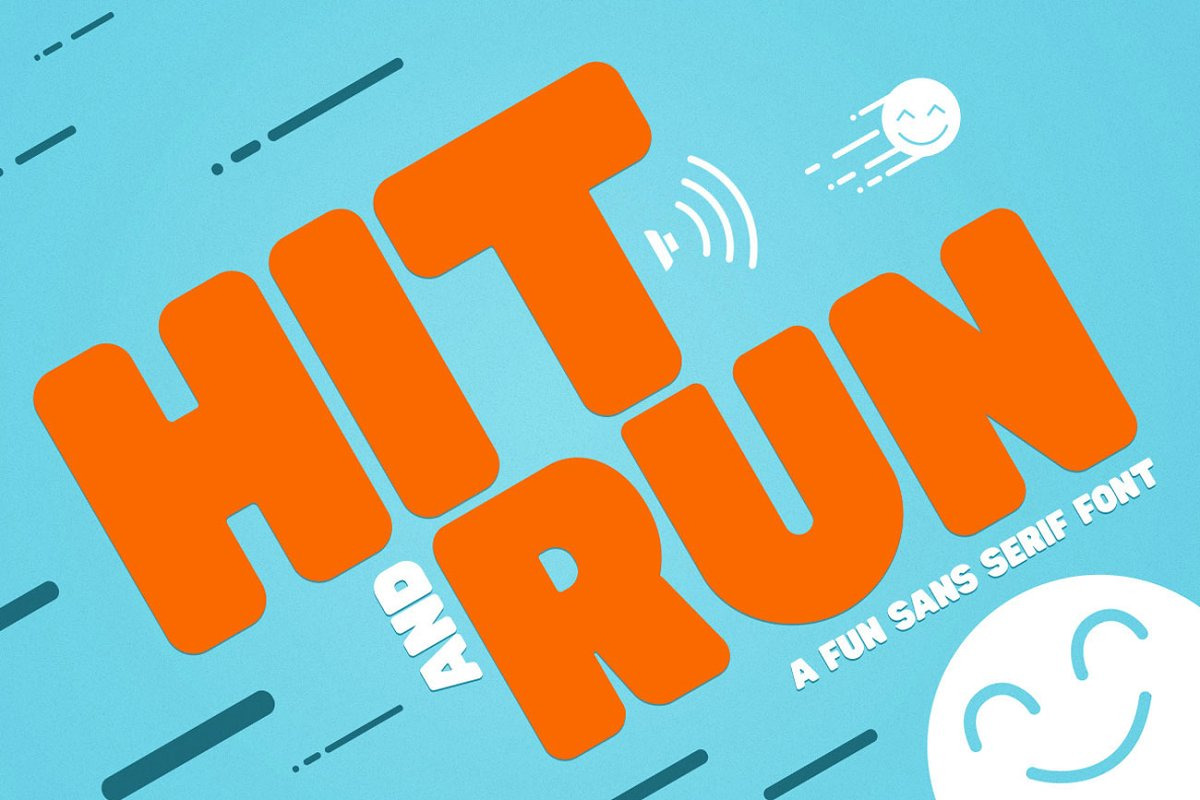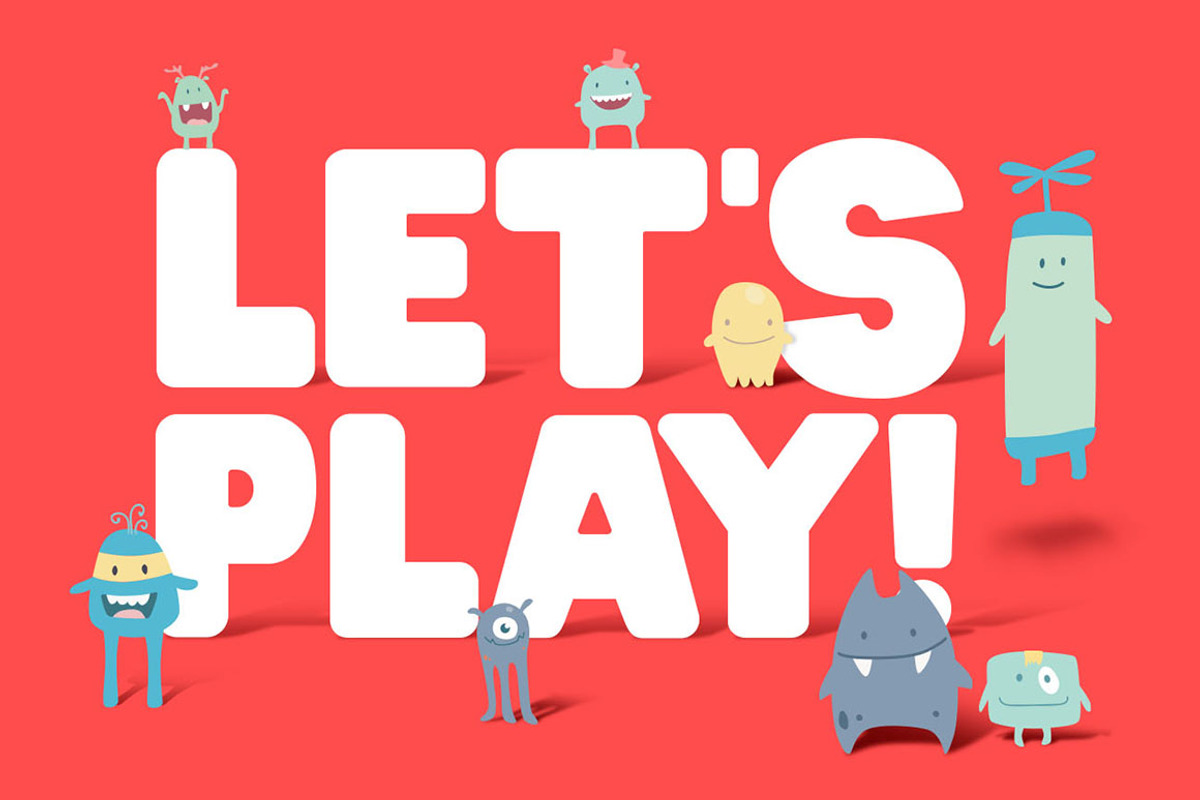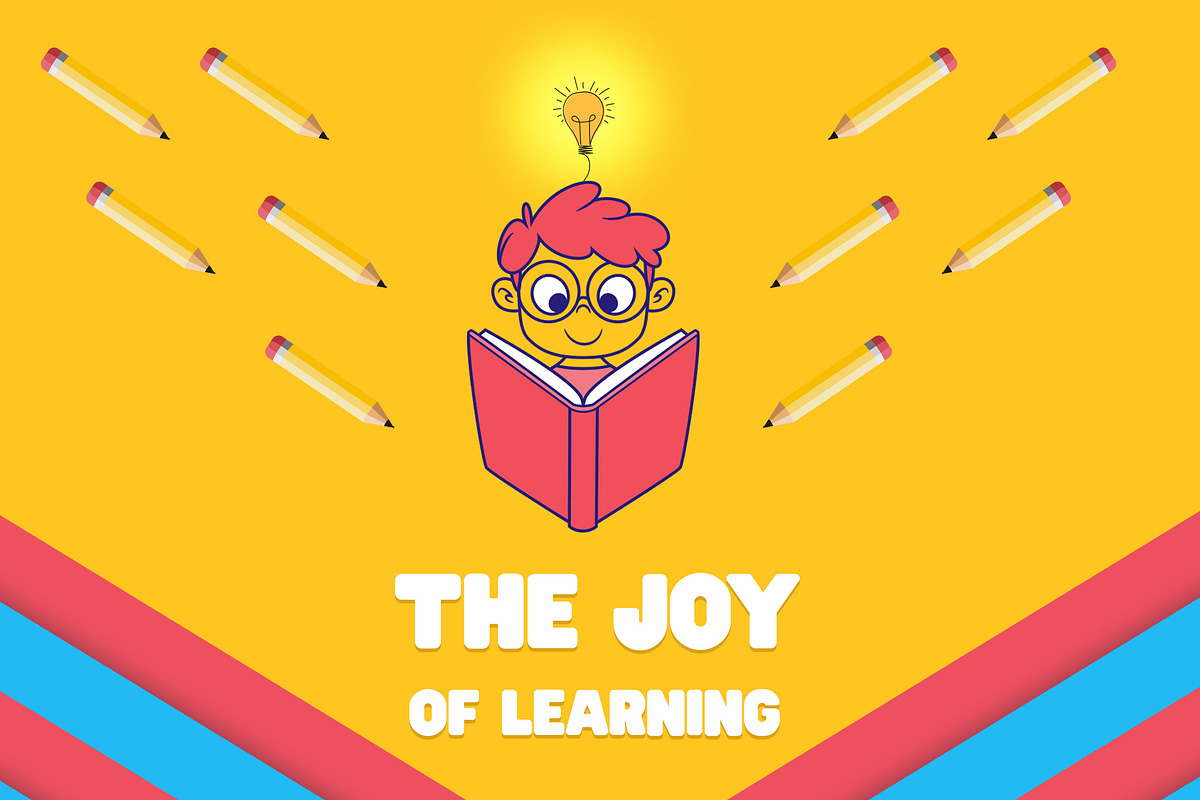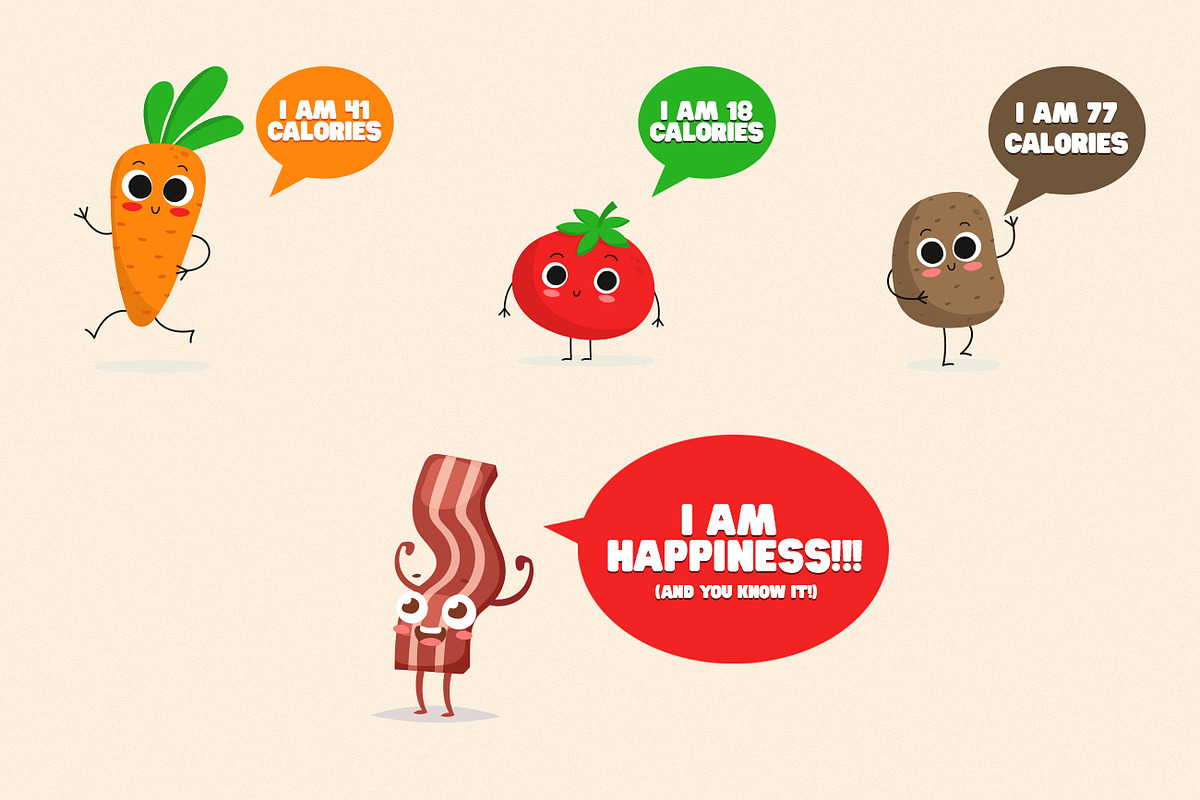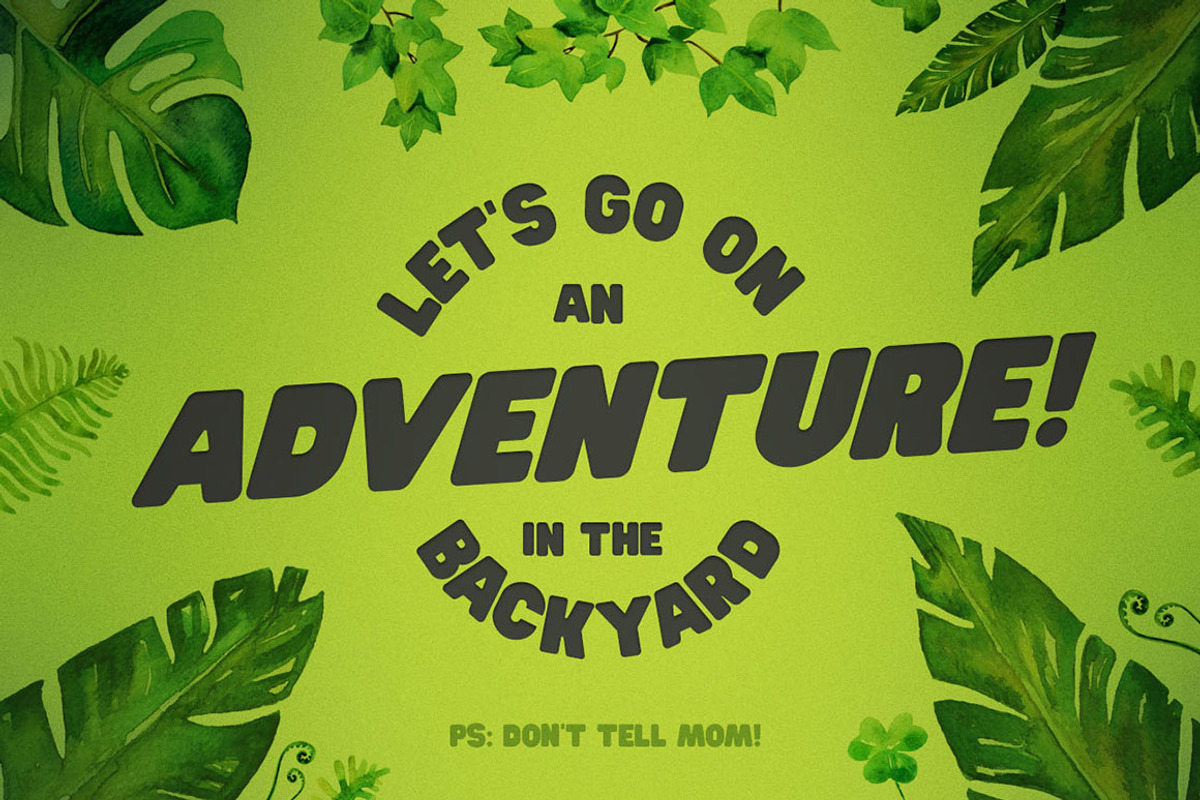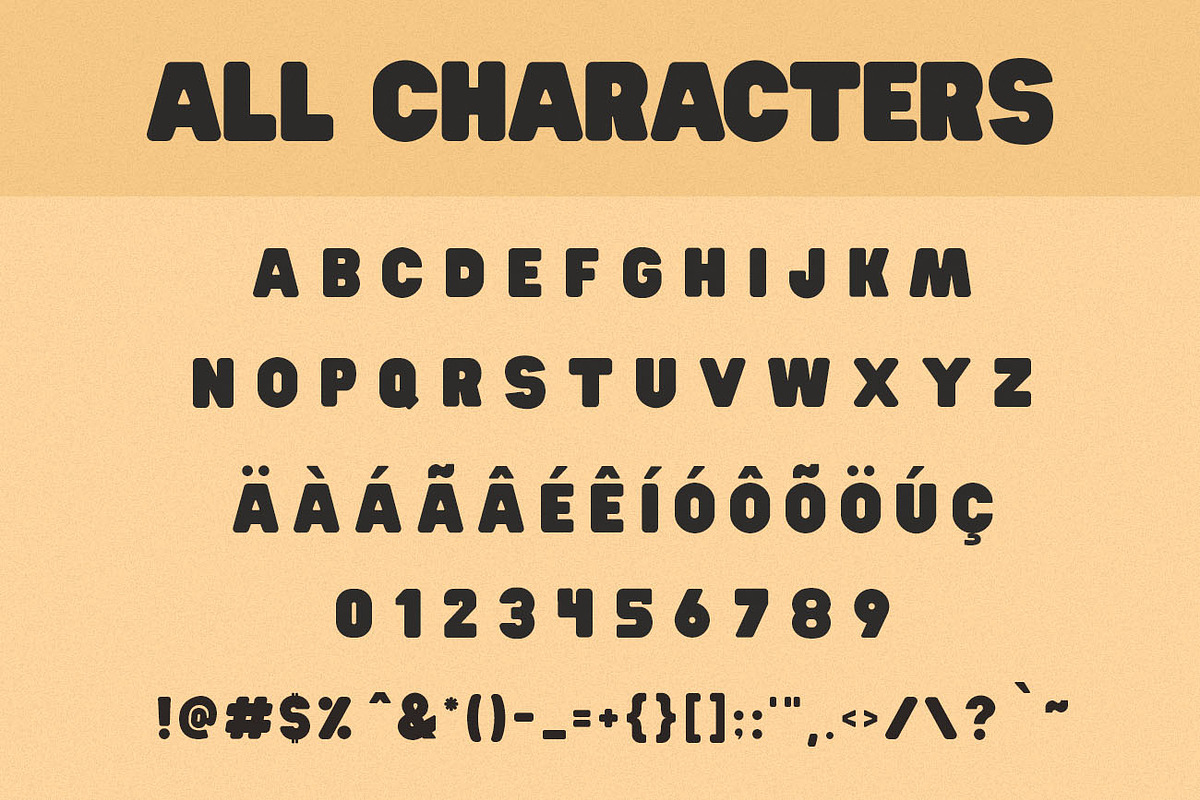
Hit and Run - Fun Sans Serif Font
A bold, playful sans serif font built to have fun! Great for kids' layouts, party invitations, birthday cards, Instagram posts, logos, packaging, and hand-lettered style headlines.
Uppercase only / upper+lowercase, numbers, punctuation
GREAT FOR:
Kids' branding, apparel, and packaging
Party and birthday invitations
Social media graphics and Instagram posts
Logos and playful brand identities
Posters and lettering-style headlines
The "Let's Go on an Adventure" preview is not an italic version — it's the regular font with some applied distortion.